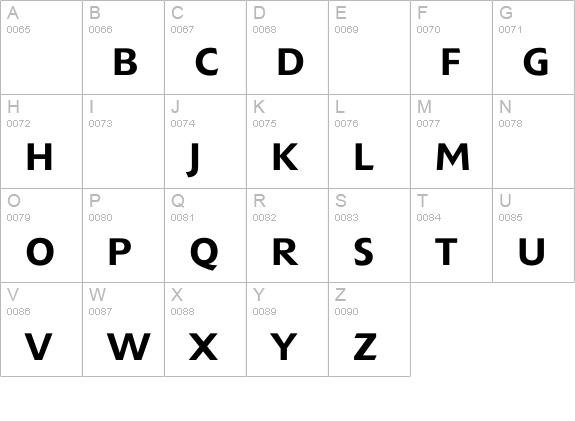
ExtensionMedium font features a modern and sleek design suitable for a wide range of projects. With its clean lines and bold presence, this font is perfect for adding a touch of sophistication to any design. The ExtensionMedium font is versatile and can be used for both headings and body text, making it a great choice for various design applications. The best part is that ExtensionMedium font is available for free download at FontsMarket.com. This means you can easily access this stylish font and incorporate it into your projects without any hassle. Whether you are working on a website, branding materials, or print designs, ExtensionMedium font will elevate your work with its contemporary style and elegance. Download ExtensionMedium font today and enhance your design projects with this sleek and professional typeface.